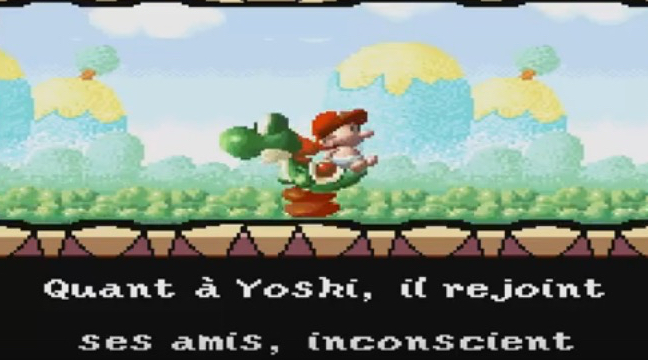
• Recreation of the "chalkboard" pixel font used in Nintendo's 1995 Super NES classic "Super Mario World 2: Yoshi's Island". Only the characters used in the game have been included. The "Q", "X", "Z" and "j" are my own creation, as these characters don't seem to have been used in any of the on-screen texts I came across. Note that this font includes a few special characters, mapped to the most appropriate unicode point: the Yes/No selection arrow (mapped to "triangular bullet" U+2023), directional arrows (U+2190 - U+2193) and the circled "A" (U+24B6), "B" (U+24B7), "X" (U+24CD) and "Y" (U+24CE).
Update Sept. 2019: proper left/right double quote mark; "j" fixed; "Q", "X" and "Z" fixed; added accented characters and "ß" - note that, for some reason, the accented "e" and "i" versions have an additional pixel of letter-spacing; added ordinal "ª" and "º"; added "æ"; added "¡" and "¿" from the spanish version of the game on the Game Boy Advance - note that the regular exclamation and question marks in the spanish version are different from the English/French/German version, and this recreation keeps the ones from the latter.
Nice.  You might be surprised that you actually got the capital Q accurate to the game (the image attached has its text in French).
@QXZ hah, and i wasn't too far off with my "j" either (except for the dot not being off to the side like the "i"). interesting, I didn't even know there were different localisations of SNES games around...I should hunt some down for more reference.
same thing with this font, the US 1.0 version of the game has a thinner latin font